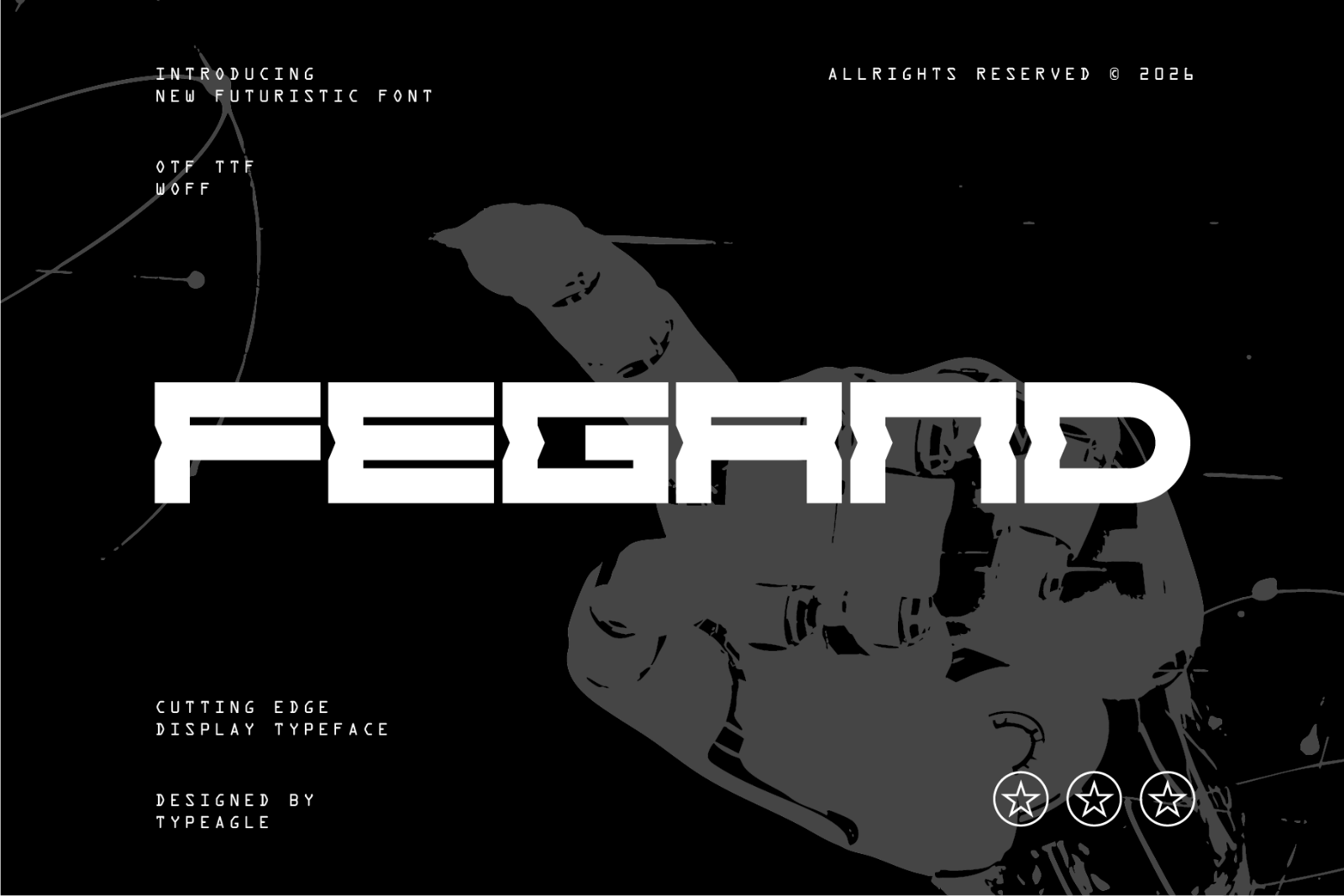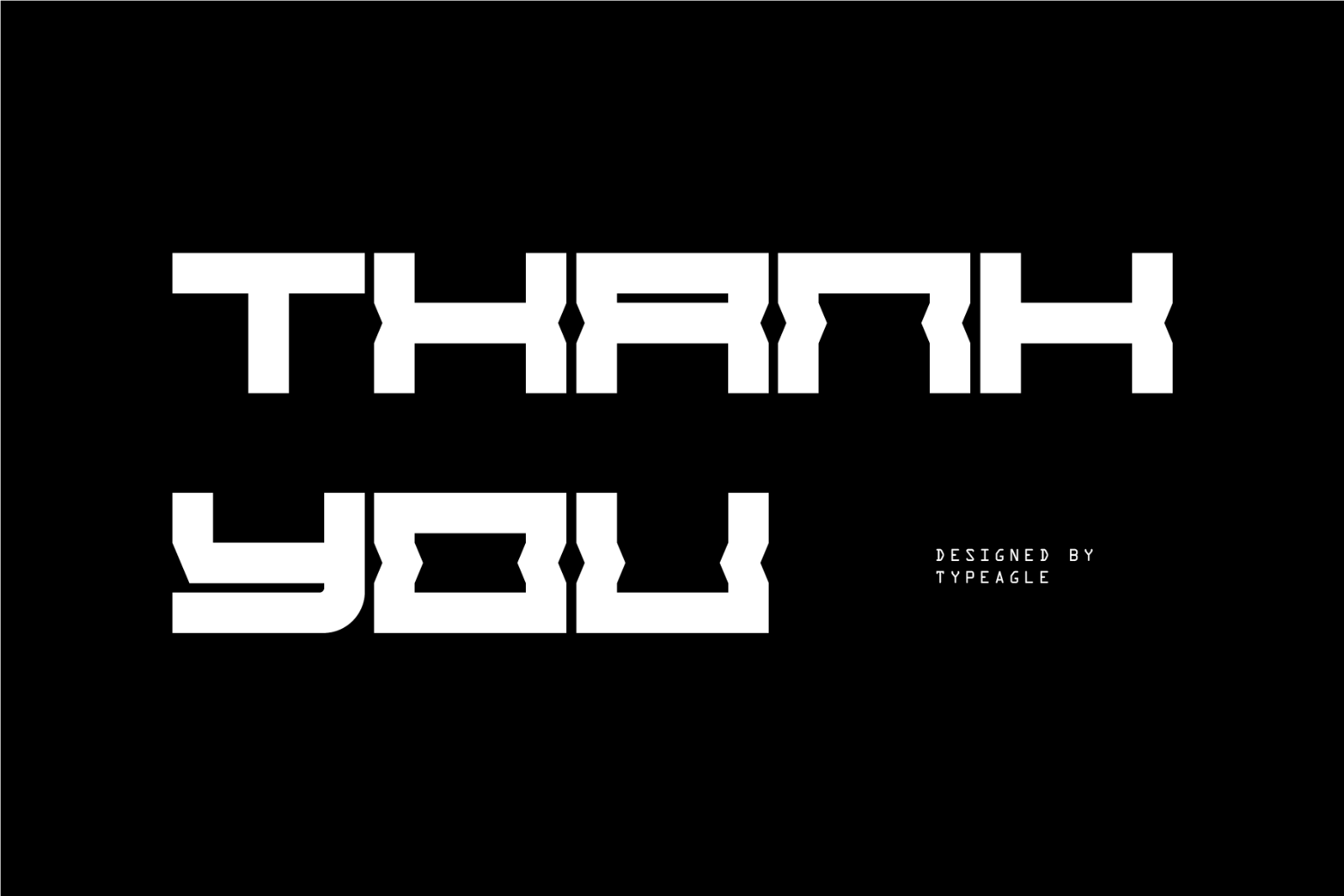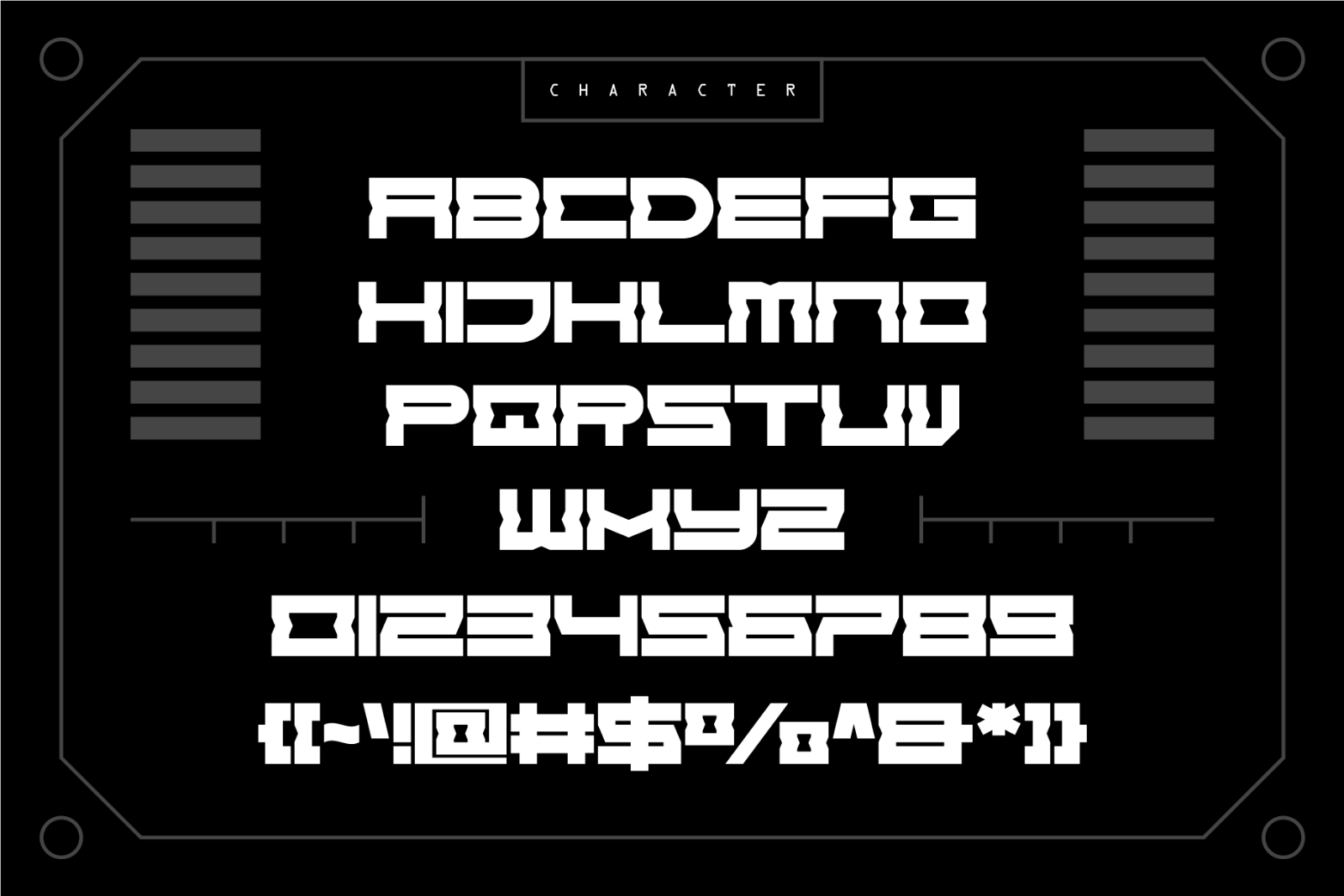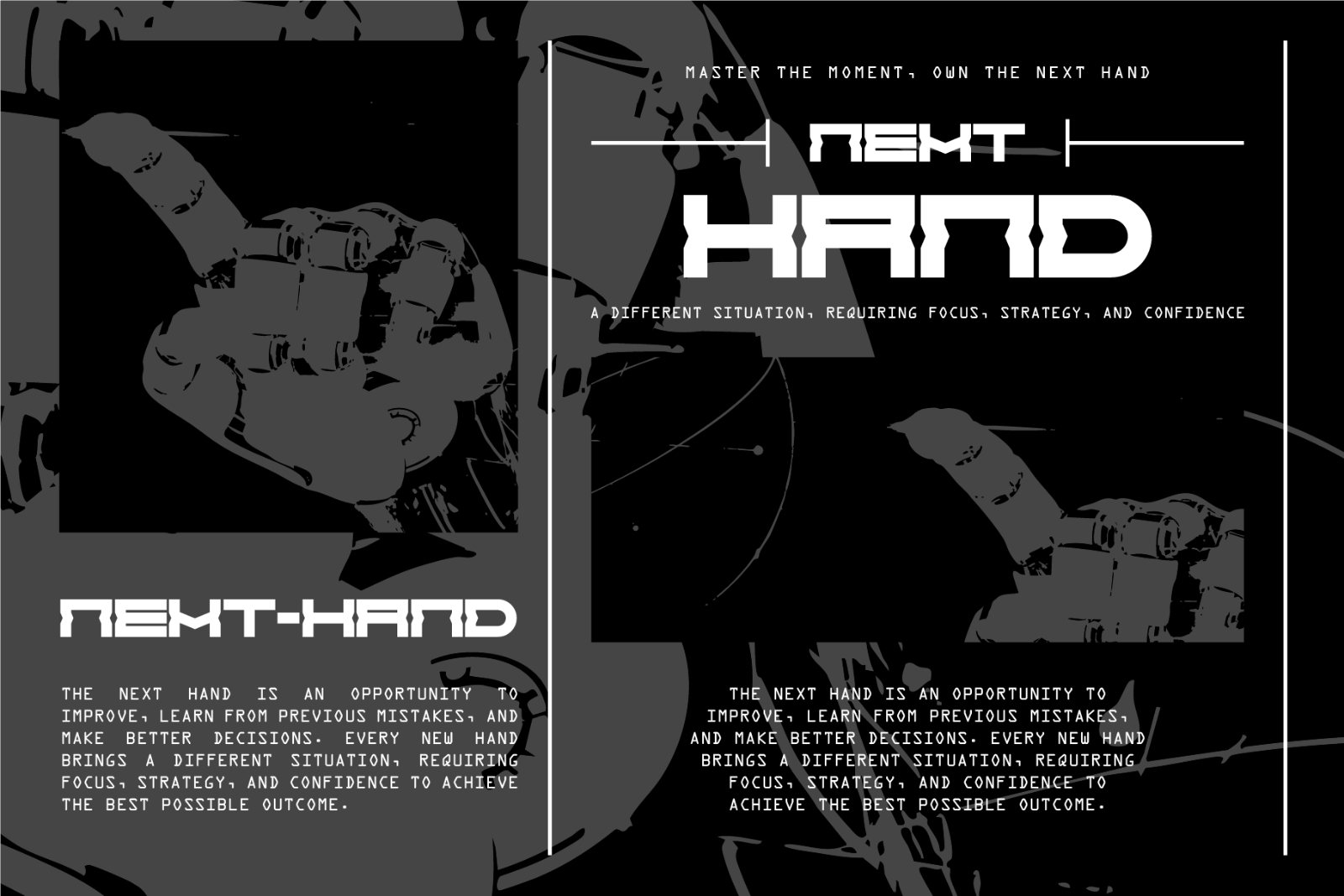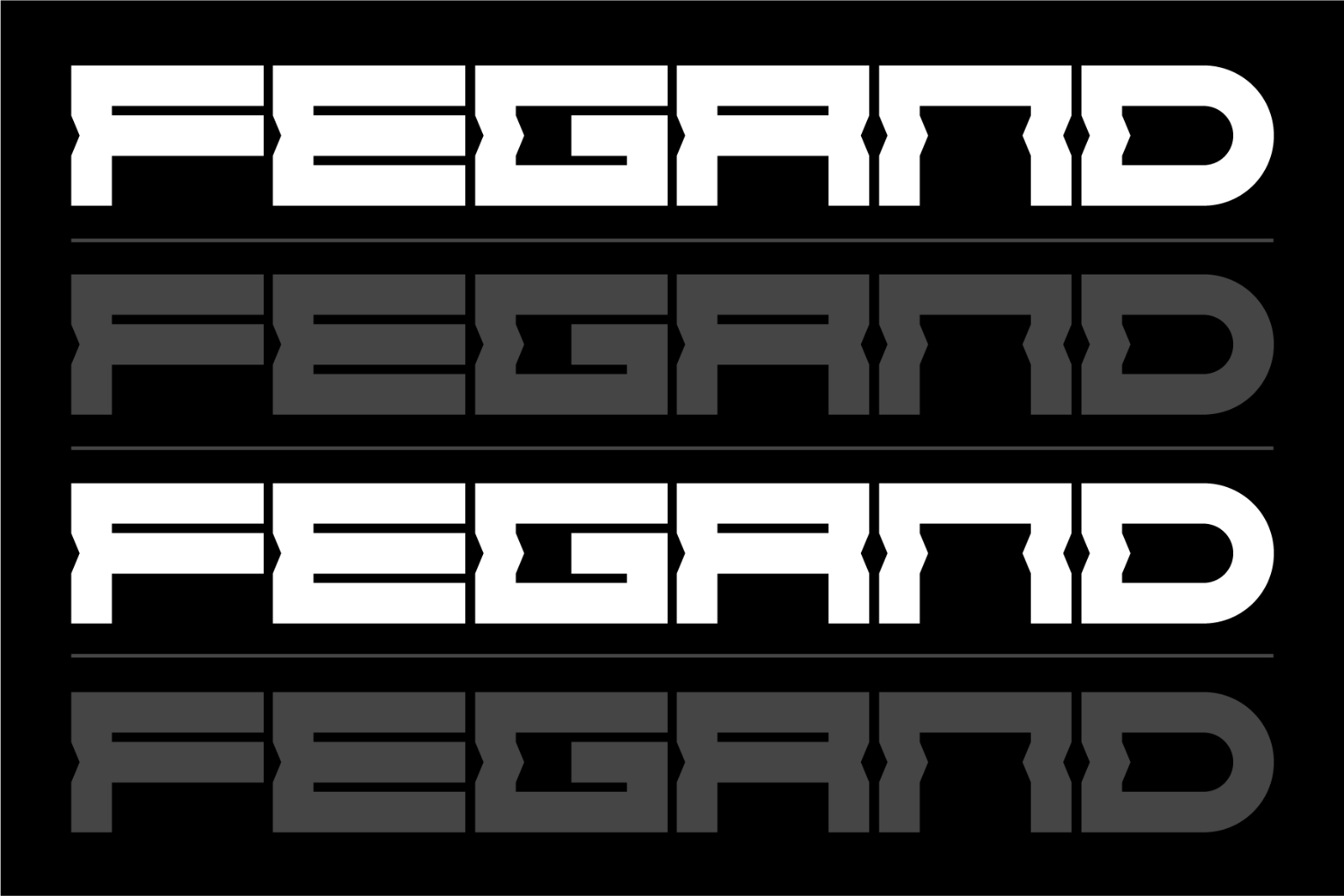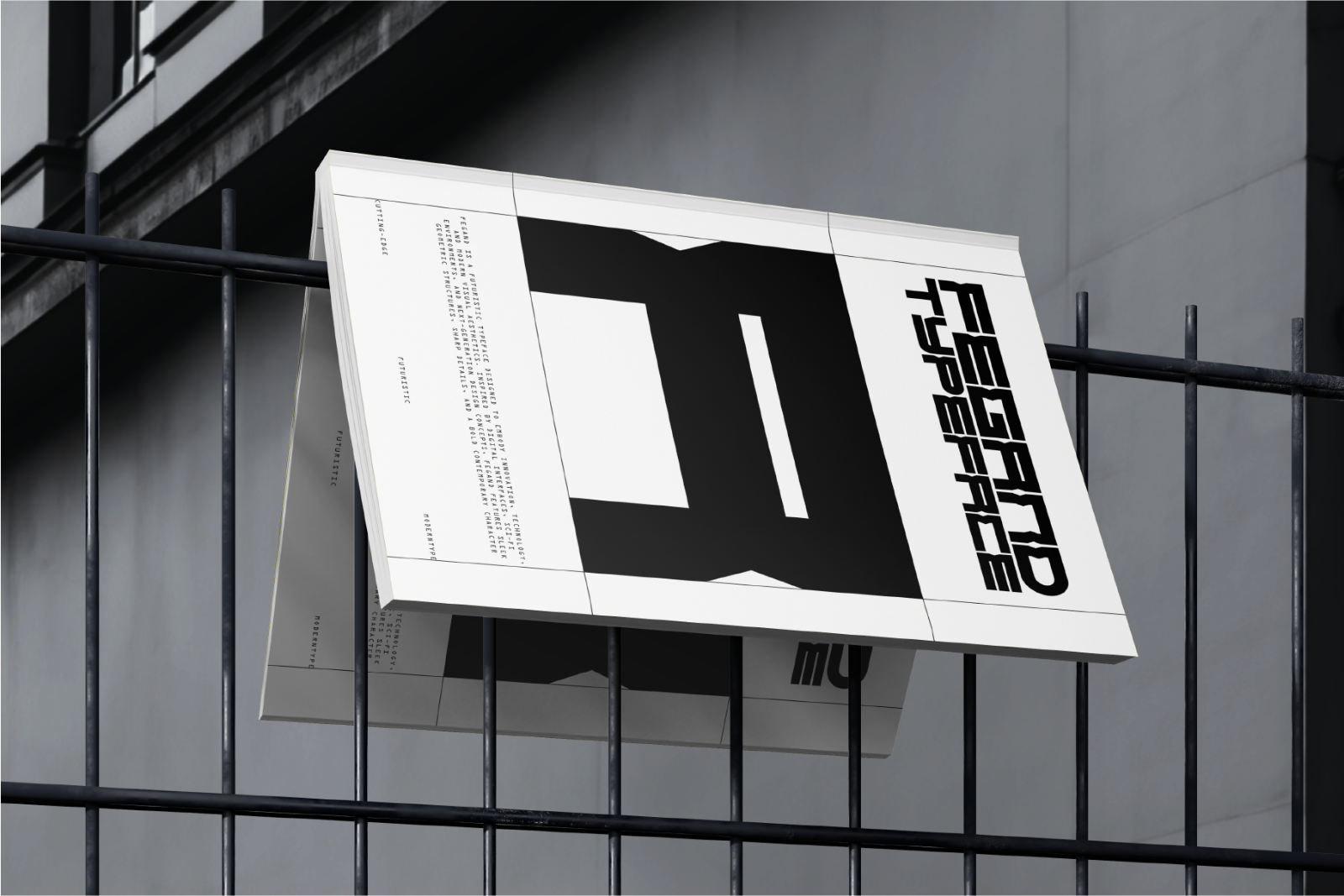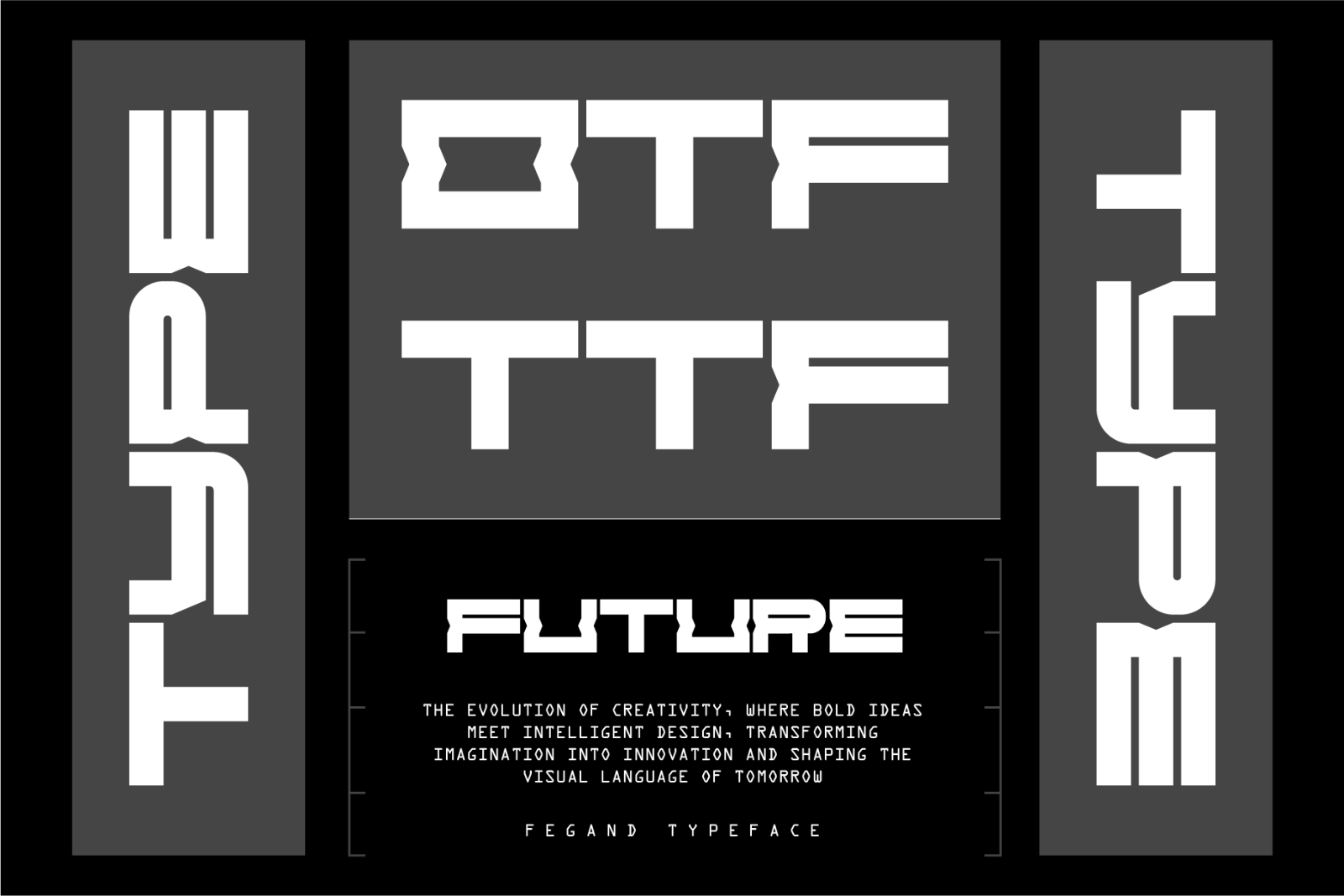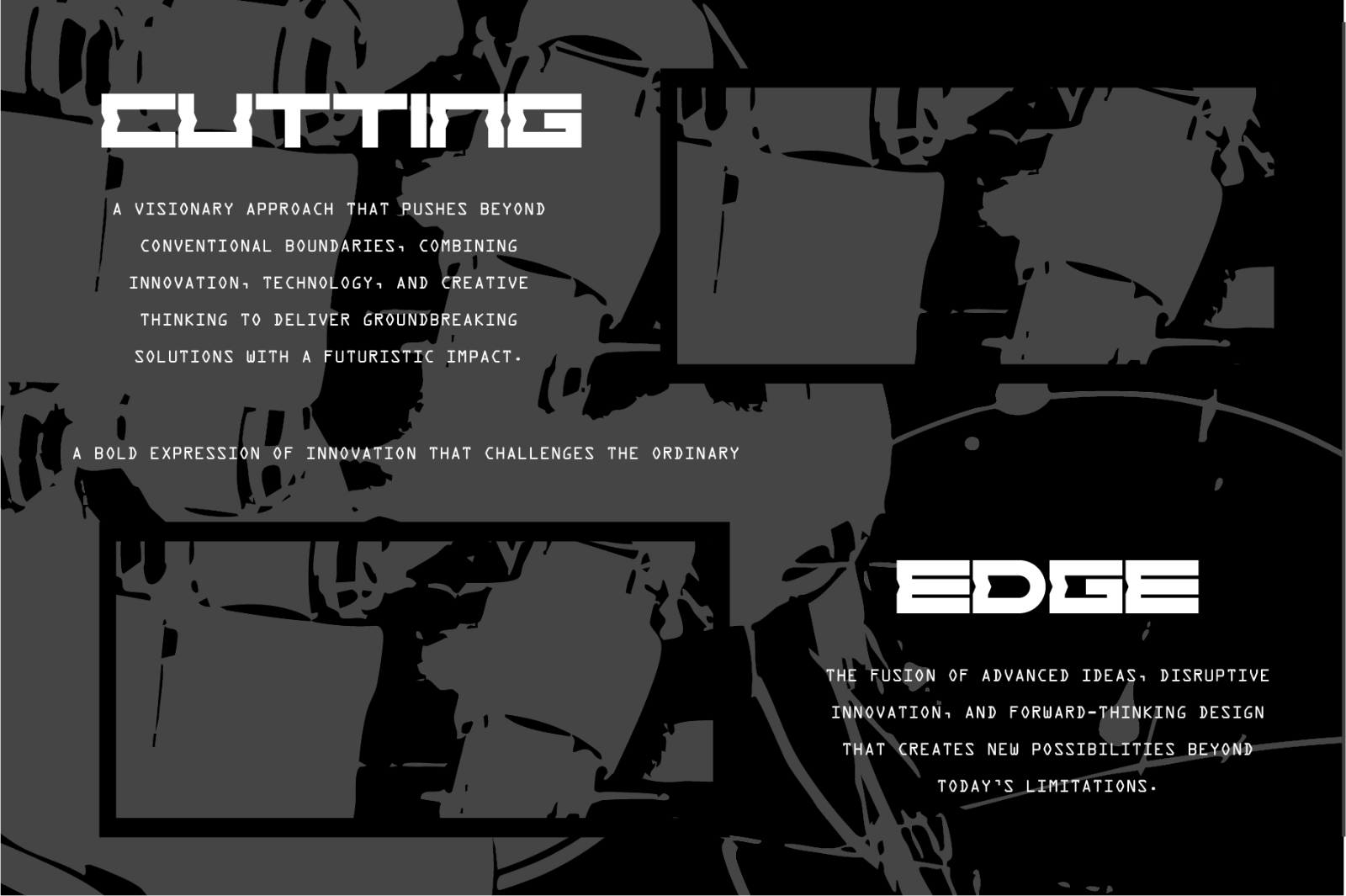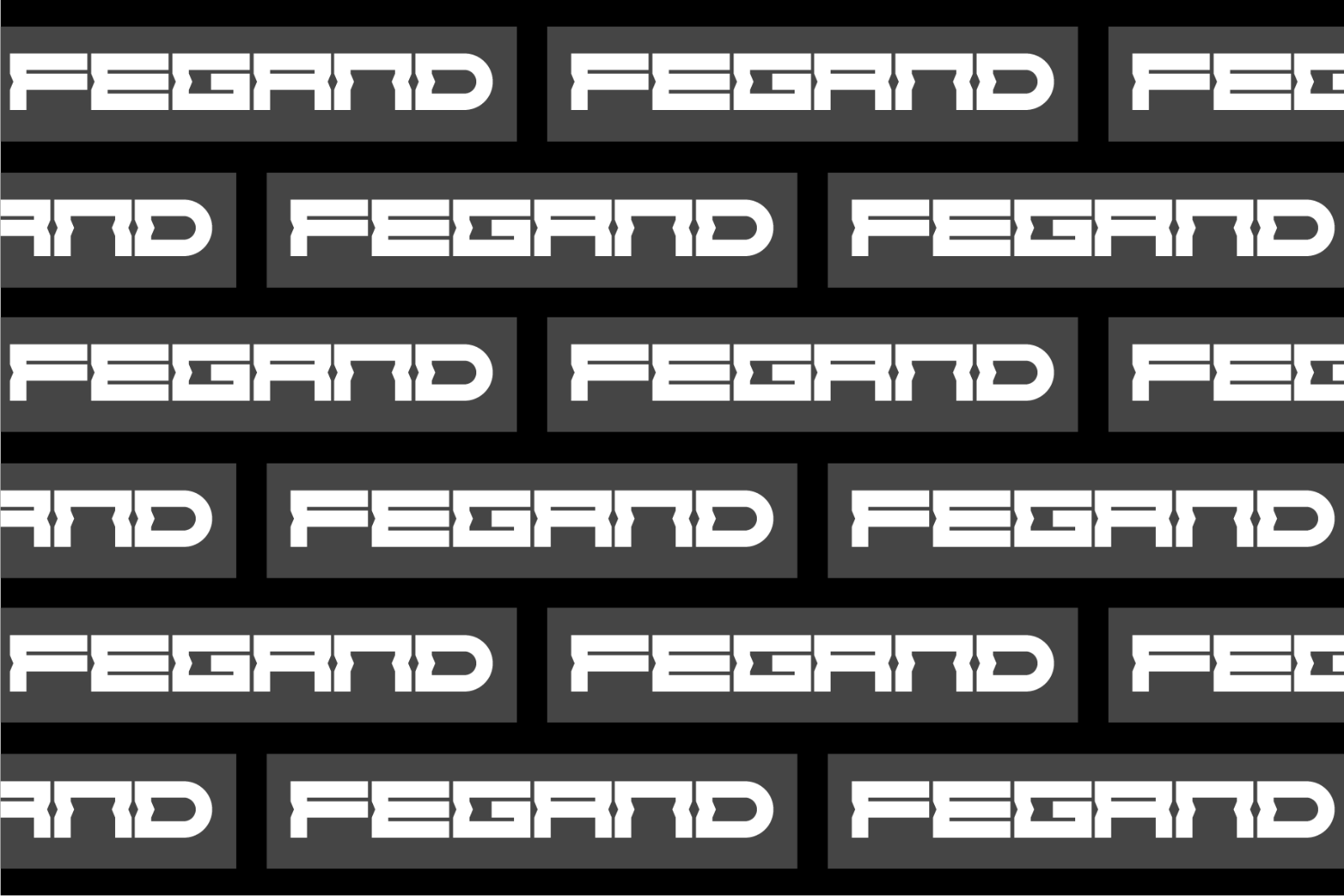
Fegand is a futuristic typeface designed to embody innovation, technology, and modern visual aesthetics. Inspired by digital interfaces, sci-fi environments, and next-generation design concepts, Fegand features sleek geometric structures, sharp details, and a bold contemporary character.